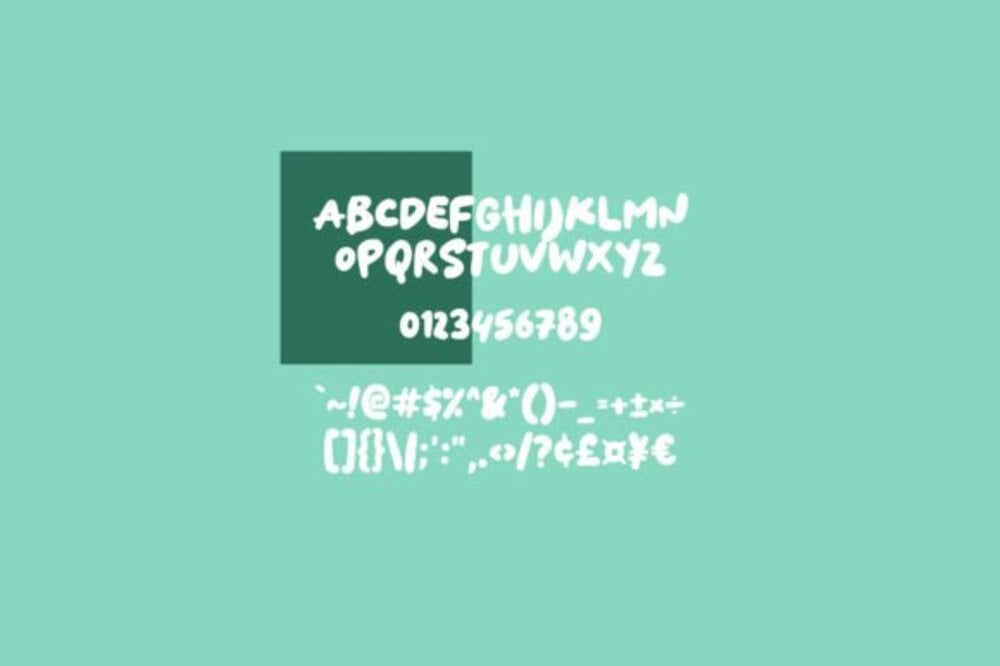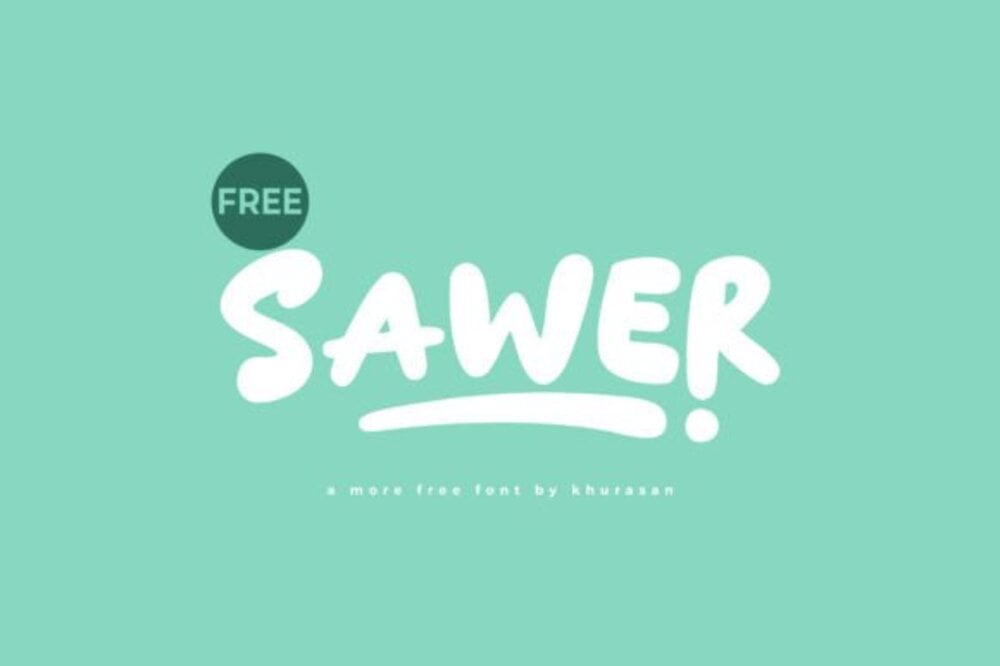
Sawer Font
Sawer is a bold and edgy typeface that commands attention with its sharp angles and striking geometric design. Perfect for logos, headlines, and modern branding, it exudes confidence and innovation. Sawer’s dynamic structure makes it ideal for projects that demand a contemporary, avant-garde aesthetic, delivering a powerful visual impact that sets your designs apart.